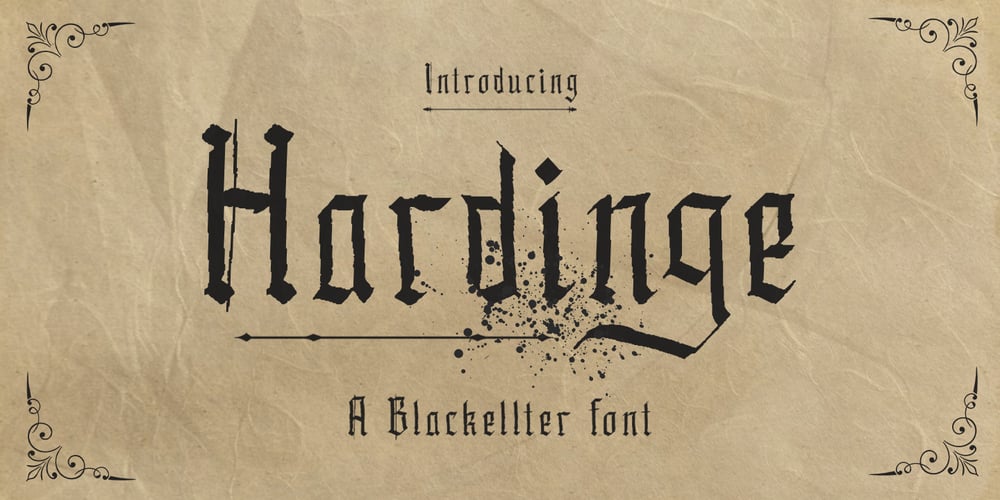
Hardinge
Hardinge font
Hardinge Font Family was designed by Hilmius Akbar and published by Typefactory. Hardinge contains 1 styles and family package options. Hardinge is born from an original and blackletter style font. It has a classic, vintage-style which is perfect for logos, branding materials, t-shirts, prints, business cards, and every other design which needs a unique and striking typeface.